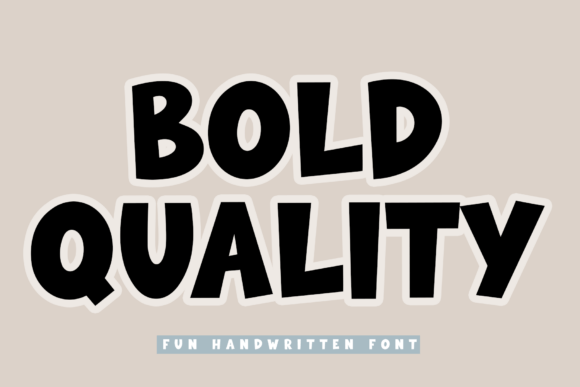
Unlock the Magic of Bold Quality Font
Have you ever stared at a blank canvas, feeling like the perfect design is just out of reach? You know, that moment when your creative juices start flowing, and you’re on a mission to create something truly special? That’s exactly where the Bold Quality Font comes in – a game-changing tool that’s about to revolutionize your design process.
With its casual and creative vibe, the Bold Quality Font is the perfect companion for personal projects, invitations, and social media graphics that need a dash of warmth and friendliness. Its charming, hand-drawn aesthetic adds a fun and unique touch to any design, making it a valuable asset for designers who want to stand out from the crowd.
Bold Quality Font Key Features
- Unique Characteristics: Features a distinctive bold style with carefully crafted letterforms, making it ideal for headings, titles, and other emphasis text.
Designer Review: Bold Quality Font
Overall, I think the Bold Quality Font has a lot of potential, but it’s not without its flaws. Here are some points to consider.
- Consistent line weights: The font’s bold weight is well-executed and consistent throughout the design.
- Good legibility: Despite its bold nature, the font remains legible even at smaller sizes.
- Modern aesthetic: The font’s design is modern and sleek, making it a great choice for contemporary designs.
- Lack of versatility: The font is quite one-dimensional and doesn’t offer a lot of flexibility in terms of style or mood.
- Not ideal for body text: While the font is great for headings and titles, it’s not the best choice for large blocks of body text.
- May not be accessible: The font’s bold weight may not be suitable for users with visual impairments or reading difficulties.
In conclusion, while the Bold Quality Font has its strengths, it’s not a one-size-fits-all solution. It’s best suited for projects that require a bold, modern aesthetic, but it may not be the best choice for every design scenario.
Tips for Getting the Most Out of Bold Quality Font
Use Bold Quality Font to add emphasis to important text, create a bold and modern look, and enhance readability.
Pair Bold Quality Font with a clean and simple design to create a visually appealing layout.
Bold Quality Font is ideal for:
- Emphasizing key points
- Creating a modern and sleek design
Alternatives to Bold Quality Font for Designers
Playfair Display is a high-end, elegant serif font that exudes luxury and sophistication. It’s ideal for use in high-end branding, magazine covers, and other materials where a touch of sophistication is required. Compared to Bold Quality Font, Playfair Display has a more refined and delicate feel, making it a better choice for applications where subtlety is key.
Montserrat is a sans-serif font designed specifically for digital use. It’s clean, modern, and highly legible, making it an excellent choice for digital products, such as websites, mobile apps, and software interfaces. Compared to Bold Quality Font, Montserrat has a more streamlined and modern aesthetic, making it a better choice for applications where a clean and minimalist look is desired.
Didot is a classic serif font that evokes a sense of elegance and sophistication. It’s ideal for use in high-end branding, luxury goods, and other materials where a touch of refinement is required. Compared to Bold Quality Font, Didot has a more ornate and classic feel, making it a better choice for applications where a traditional and sophisticated look is desired.